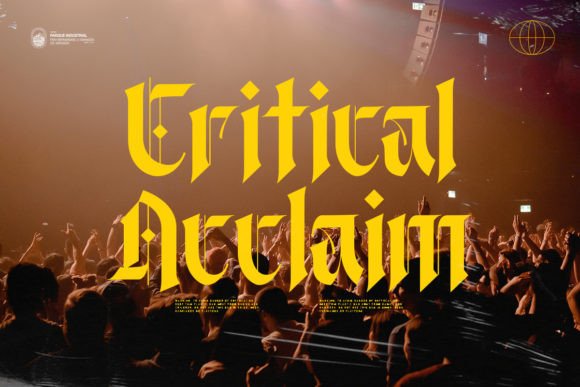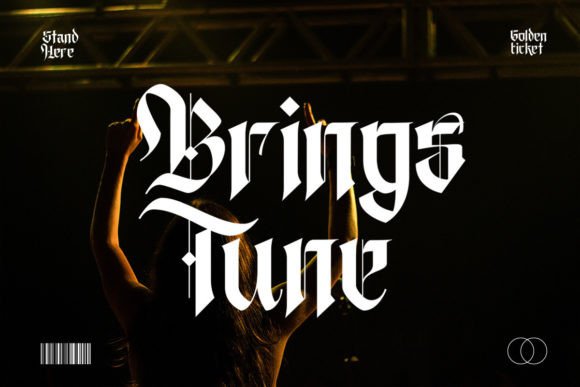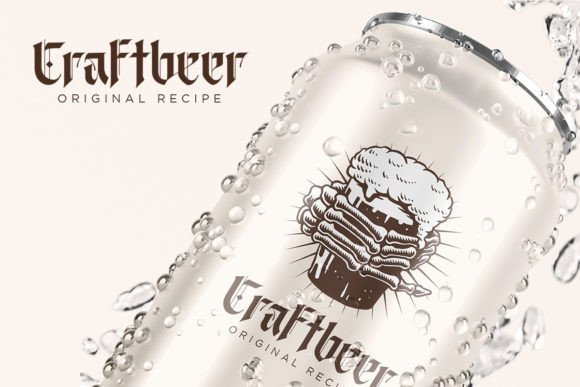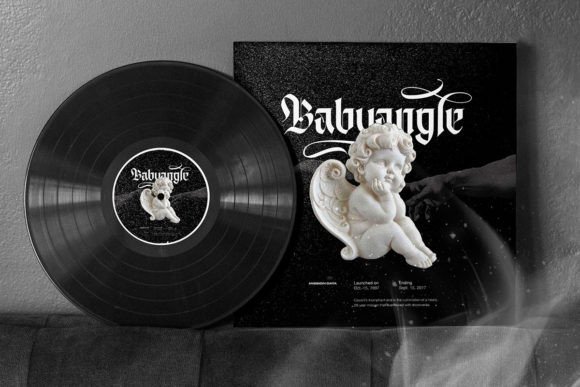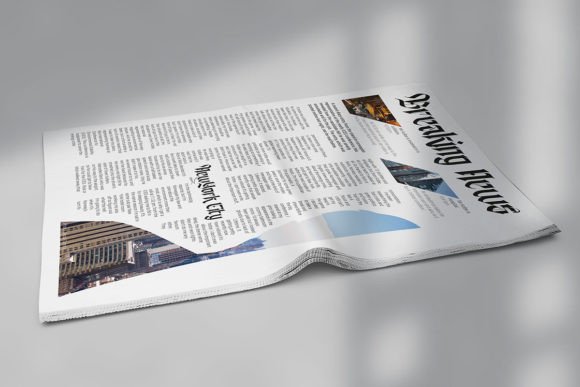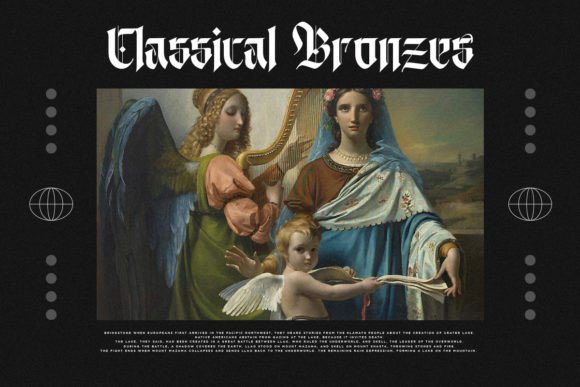
Introduction to Mockgent Font
You’ve spent hours agonizing over the perfect font for your creative project, scrolling through endless options, only to find yourself stuck with a bland, uninspiring choice. But what if I told you there’s a font that could elevate your design from mere mortal to majestic masterpiece? Enter the Mockgent Font, a blackletter font that exudes power, sophistication, and elegance.
With its intricate details and thick lines, the Mockgent Font is the perfect choice for logos, headlines, and any project that demands attention and gravitas. Whether you’re a seasoned designer or just starting out, this font is a valuable resource that will help you create high-quality designs that stand out from the crowd.
Key Features of Mockgent Font
- High-quality design resource ideal for creative projects, offering a unique and professional look.
- Features a transparent background, allowing for easy integration with various design elements.
- High-resolution design (300 DPI) for crisp and clear display in print materials.
- Mockgent Font is a versatile design resource, suitable for a variety of creative projects, from branding to editorial design.
Honest Review: Mockgent Font
I recently stumbled upon the Mockgent Font and was excited to give it a try. As a designer, I’m always on the lookout for high-quality design resources to elevate my creative projects.
Here are some things that work well with the Mockgent Font:
- ✨ The font is incredibly versatile and can be used for a wide range of creative projects, from logos to digital graphics.
- ✨ The transparent background option makes it easy to use the font on top of images or other design elements.
- ⚠️ The font may not be suitable for print projects, as it can be difficult to read in smaller sizes.
- ⚠️ The font is not available in as many weights as some other popular fonts.
Overall, I’m impressed with the Mockgent Font. It’s a solid addition to any designer’s toolkit, and I appreciate the fact that it’s available for free download. While it may have some limitations, I think it’s a great resource for designers working on digital projects.
Mockgent Font
Tips for Getting the Most Out of Mockgent Font
Experiment with different font sizes, colors, and combinations to create unique and engaging visuals. Use the font in conjunction with other design elements to add depth and interest to your project.
Mockgent Font is ideal for creative projects, such as social media graphics, presentations, and documents. Its high-quality design and transparent background make it a versatile design resource for any project.
Q: What is the resolution of the Mockgent Font?
The Mockgent Font is a high-quality font that is designed to be scalable, meaning it can be used at various resolutions without losing its clarity and crispness. The font is available in resolutions up to 1000 DPI, making it suitable for use in a variety of creative projects, from small business cards to large-format posters and billboards.